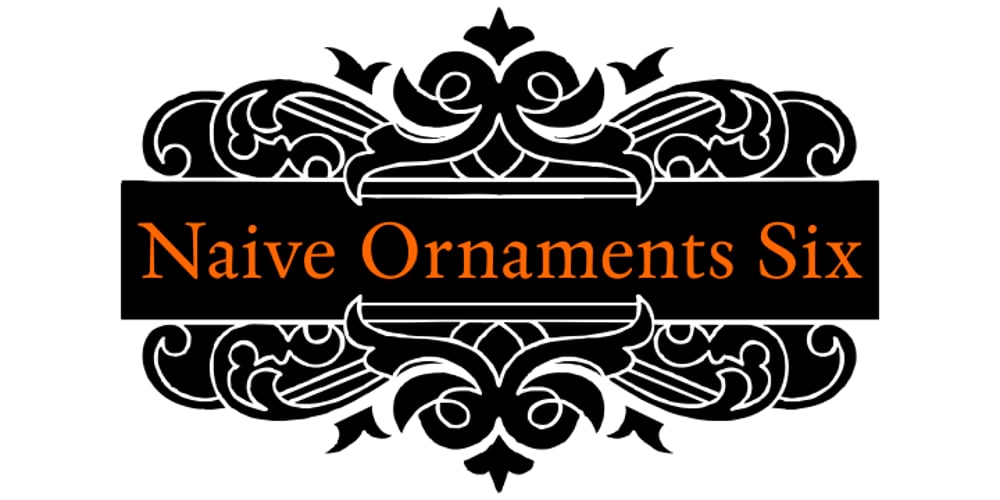
Naive Ornaments
Naive Ornaments font
Naive Ornaments Font Family was designed by Iza W and published by Intellecta Design. Naive Ornaments contains 1 styles and family package options. Naive Ornaments is a colorful collection of ornaments, available in font format. Good to use in arts and crafts works, books of arts, stationery, publishing stuff and many other applications. Another naive masterpiece by Iza W from Intellecta Design. Besides the font itself, buying Naive Ornaments you get FREE a special set of eps: 19 naive colored vectors of flowers by Iza W (see the banners at the gallery section with some samples of this collection).